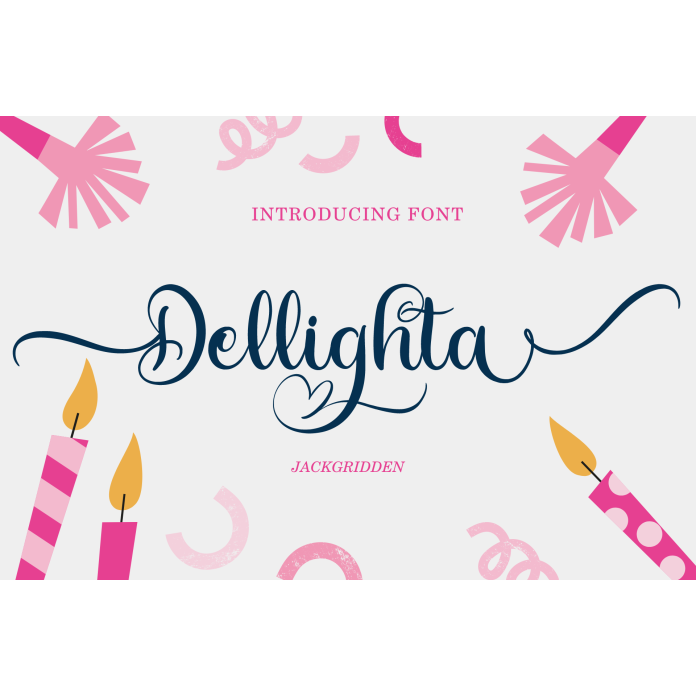
Introducing Dellighta, your go-to font for adding a touch of humor and whimsy to your projects! This delightful script font is carefully crafted to bring joy and laughter to your designs, making it perfect for a wide range of creative endeavors.